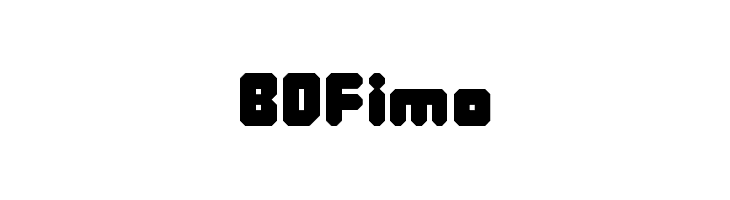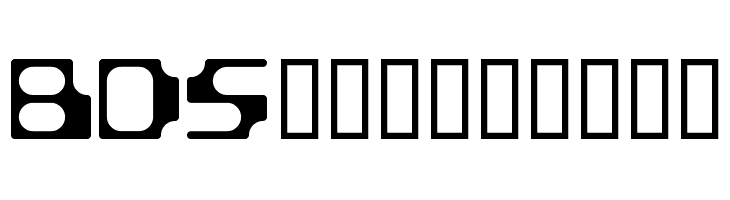
A bold, geometric font with sharp, angular letterforms and a modern, impactful style.
A modern, geometric font with sharp angles and circular forms.
A modern, geometric font with bold, clean lines and a structured appearance.
A modern, geometric font with a futuristic and sleek design.